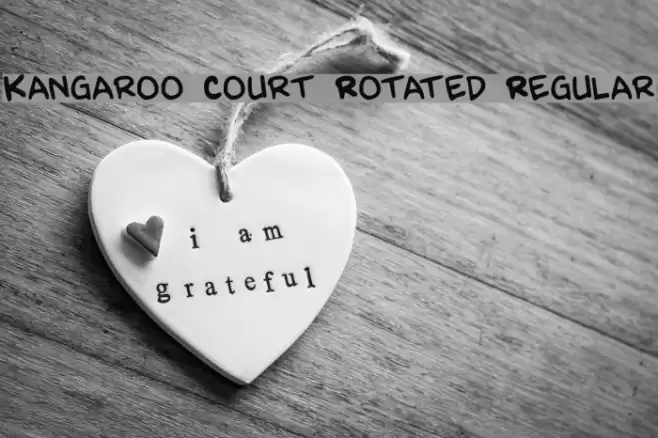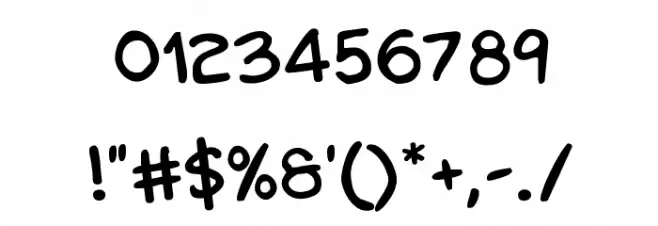
Kangaroo Court Rotated Regular Font
Kangaroo Court Rotated Regular Description
This playful and whimsical font features a handwritten style with a casual, friendly appearance. The characters are bold and rounded, giving them a soft and approachable look. The strokes are consistent in thickness, providing a uniform appearance across all characters. The letters are slightly tilted, adding to the informal and dynamic feel of the font. This style is reminiscent of casual handwriting, making it suitable for projects that aim to convey a sense of fun and creativity. The numbers and special characters maintain the same playful aesthetic, ensuring consistency throughout any text.
A playful, handwritten-style font with bold, rounded characters from Uncategorized fonts.
- Proposed Projects: Ideal for children's books, playful branding, casual invitations, and creative posters.
- Overall Style: Playful
- Use Case: Headlines, Logos, Informal Text